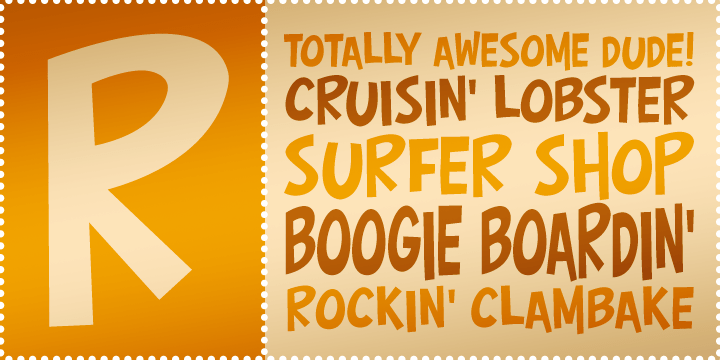
HomeFont BrosGroovy (1966-1978)Surfer Shop BTN Groovy (1966-1978)Sans SerifRetro (1936-1965)Wacky Surfer Shop BTN FacebookXPinterestWhatsApp 1 of 1 About Surfer Shop BTN Hang ten with Surfer Shop, a playful display typeface that is perfect for beachside living. Comes with alternate caps and a fun fresh flavor!  DOWNLOAD ON FONT BROSThis font is sold and delivered by Font Bros. Font Canyon may earn a commission if you buy through this link. People also explored Wagonwheel Font Mutimel Font Silverstein Xiolien Gritalina Font Snow Man Font Kerogers Font Miss Christmas Font Strasua 333 0 TagsSurfer Shop BTN Font Previous articleFilmotype FordNext articleCouture LEAVE A REPLY Cancel reply Comment: Please enter your comment! Name:* Please enter your name here Email:* You have entered an incorrect email address! Please enter your email address here Website: Save my name, email, and website in this browser for the next time I comment. Personal Use Free Consequences Personal Use Free Read more about this font Cadosa Personal Use Free Read more about this font Girls Personal Use Free Read more about this font Euphorigenic Personal Use Free Read more about this font BLOG How to Cut Any Font on Cricut: Convert a Font to SVG (Free) Turn any font into a clean SVG so it cuts crisp on Cricut - a quick 3-step workflow using a free font-to-SVG tool. Top 7 Google Fonts Alternatives for Faster and Privacy-Friendly Web Design (2025) Using Fonts in Digital Marketing: Tips to Strengthen Your Brand Identity Free Fonts Risk: Why Free Fonts Can Be Dangerous for Designers